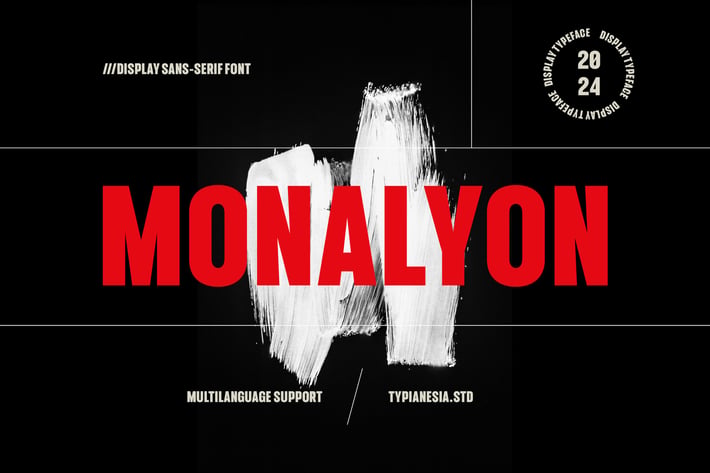
Monalyon - Display Condensed Sans Serif Font
Monalyon - Dispaly Condensed Sans Serif Font - Modern Bold Contemporary Design
Monalyon is a modern Display Sans Serif font, characterized by clean lines and contemporary design. Its makes an excellent choice for projects that demand a bold and impactful visual presence.Tailored for display purposes, Monalyon is perfect for headlines, banners, logo design, brand identity, website headers and titles, printed materials, digital and print advertisements, packaging design, menu design, social media graphics, corporate presentations, event promotions, app interfaces and any project where a sans-serif font can provide a strong and modern. Comes with ligatures, a smooth and harmonious flow between characters. The font includes a comprehensive set of ensuring uppercase and lowercase letters, punctuation marks, numerals, and offers multilanguage support for global accessibility. Crafted with expertise, Monalyon reflects a mastery of modern sans-serif typography, Its perfect for various design contexts, adding a touch of sophistication to your creations.